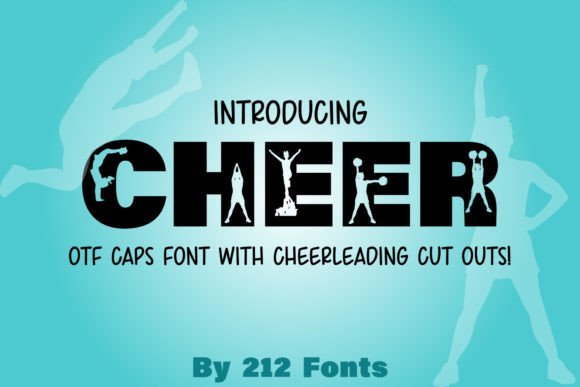
Adding a Touch of Fun to Your Designs
Do you ever get that creative spark in the middle of the night, and you just can’t wait to bring your idea to life? That’s exactly what happened to me when I stumbled upon the Cheer Font. Its fun and energetic vibe is infectious, and I knew I had to incorporate it into my next project.
The Cheer Font is a decorative font that features cheerleader cutouts, perfect for adding a playful touch to your designs. With its PUA encoding, you can easily access all the glyphs and ligatures, making it a valuable addition to any designer’s toolkit. Whether you’re working on a marketing campaign, a social media post, or a fun project for a client, the Cheer Font is sure to bring a smile to your face and a pop of personality to your design.
Cheer Font Key Features
- Font Family: Cheer Font is a sans-serif typeface designed to evoke a sense of enthusiasm and energy.
- Font Size: Supports a wide range of font sizes, from 8pt to 1000pt, making it suitable for various design applications.
- Unique Characteristics: Cheer Font features a distinctive rounded edge and a subtle, yet energetic feel, making it perfect for sports, fitness, and lifestyle-related designs.
Designer Review: Cheer Font
Overall, I’d say that the Cheer Font is a decent choice for casual designs and projects, but it’s not without its limitations. Let’s dive into what works well and what could be improved.
- Friendly and approachable feel – the Cheer Font is perfect for projects that need a warm and inviting tone.
- Highly legible – the font is easy to read, even at smaller sizes, making it a great choice for body text.
- Wide language support – the font includes a wide range of languages, making it a versatile choice for international projects.
- Lack of sophistication – the Cheer Font is a bit too playful and may not be suitable for more formal or professional projects.
- Limited typographic options – the font doesn’t come with a lot of stylistic sets or variations, which can limit its customization options.
- Not ideal for complex text – the font may not be the best choice for projects that require a lot of complex typography or fine-tuning.
Overall, I’d give the Cheer Font 3.5 out of 5 stars. While it’s a solid choice for casual designs, it may not be the best fit for more complex or formal projects.
Tips for Getting the Most Out of the Cheer Font
Use the Cheer Font to add a playful and energetic touch to your designs.
Pair the Cheer Font with bold colors and fun graphics for a youthful and vibrant look.
Use the Cheer Font in headings and titles to draw attention and create visual interest.
The Cheer Font is perfect for:
Celebrating special occasions, such as birthdays and weddings.
Creating fun and playful marketing materials, such as social media posts and flyers.
Designing kids’ party invitations and decorations.
Alternatives to Cheer Font
Great Vibes is a beautiful, handwritten font that is perfect for creating a friendly and approachable atmosphere. It’s ideal for use in invitations, social media graphics, and other designs where a casual, personal touch is desired.
Compared to Cheer Font, Great Vibes has a more relaxed and casual feel, making it suitable for designs that require a softer tone. It’s also more cursive and fluid, making it perfect for creating a sense of movement and energy.
Alex Brush is a elegant, handwritten font that is perfect for creating a sophisticated and refined atmosphere. It’s ideal for use in luxury branding, high-end packaging, and other designs where a touch of elegance is desired.
Compared to Cheer Font, Alex Brush has a more refined and polished feel, making it suitable for designs that require a level of sophistication. It’s also more cursive and flowing, making it perfect for creating a sense of luxury and high-end quality.
Pacifico is a beautiful, modern script font that is perfect for creating a relaxed and beachy atmosphere. It’s ideal for use in travel and tourism branding, outdoor advertising, and other designs where a sense of calm and serenity is desired.